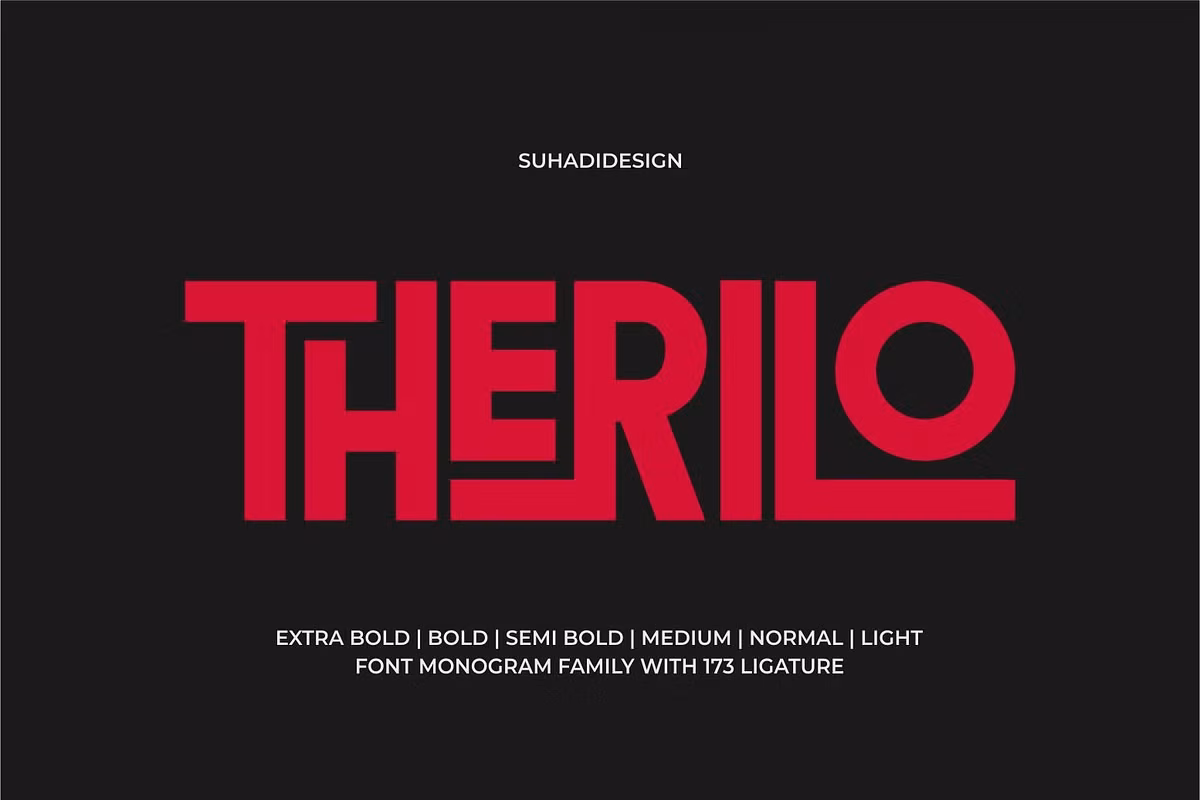
The Therilo - Sans Serif Monogram Font Free Download is a modern and clean sans-serif typeface designed for creating stylish monograms and minimalistic logo designs. With its geometric shapes and sleek lines, this font is perfect for branding, corporate identities, personal logos, and any project that needs a contemporary, professional aesthetic.
Therilo offers versatility with its sharp, bold letterforms that make it ideal for high-impact designs. It includes uppercase letters, numbers, punctuation, and multilingual support, making it suitable for both small and large-scale applications.